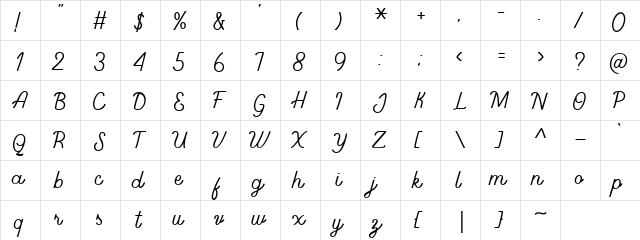
Onthehill Regular
| Foundry | Neature Visual |
| Designer | Neature Visual |
Design Context for Onthehill Typeface
Onthehill takes a measured approach to typography — its balanced proportions and neutral character make it a reliable workhorse for both digital and print work.
Pro Tip: Use Onthehill in both headline and body roles to test its range before committing to a single application.